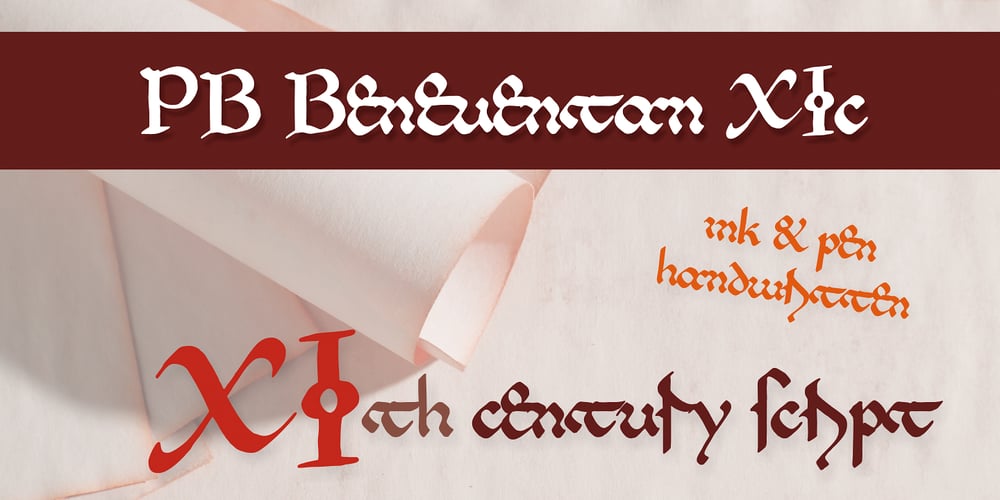
PB Beneventan XIc Font Family was designed by PaweÅ‚ Burgiel and published by PaweÅ‚ Burgiel. PB Beneventan XIc contains 1 styles and family package options. PB Beneventan XIc is a font face designed for imitate Beneventan minuscule (also called Lombardic, Casinense, Langobarda, littera Longobarda, Longobardisca) from southern Italy found in 11th century manuscripts. All characters are handwritten by use ink and pen, scanned, digitized and optimized for best quality without lost its handwritten visual appearance. Character set support codepages: 1250 Central (Eastern) European, 1252 Western (ANSI), 1254 Turkish, 1257 Baltic. Include also additional characters for Cornish, Danish, Dutch and Welsh language, spaces (M/1, M/2, M/3, M/4, M/6, thin, hair, zero width space etc.) and historical characters (mediaeval abbreviations, ligatures, ancient punctuation). OpenType TrueType TTF (.ttf) font file include installed OpenType features: Access All Alternates, Localized Forms, Fractions, Alternative Fractions, Ordinals, Superscript, Tabular Figures, Proportional Figures, Case-Sensitive Forms, Stylistic Alternates, Contextual Alternates, Stylistic Set 1-14, Contextual Ligatures, Historical Ligatures, Standard Ligatures. Include also kerning as single ‘kern’ table for maximum possible backwards compatibility with older software. Additional glyphs are mapped to Private Use Area codepoints. OpenType features automatically exchange some default glyphs by stylistic alternates and create ligatures for better historical appearance.